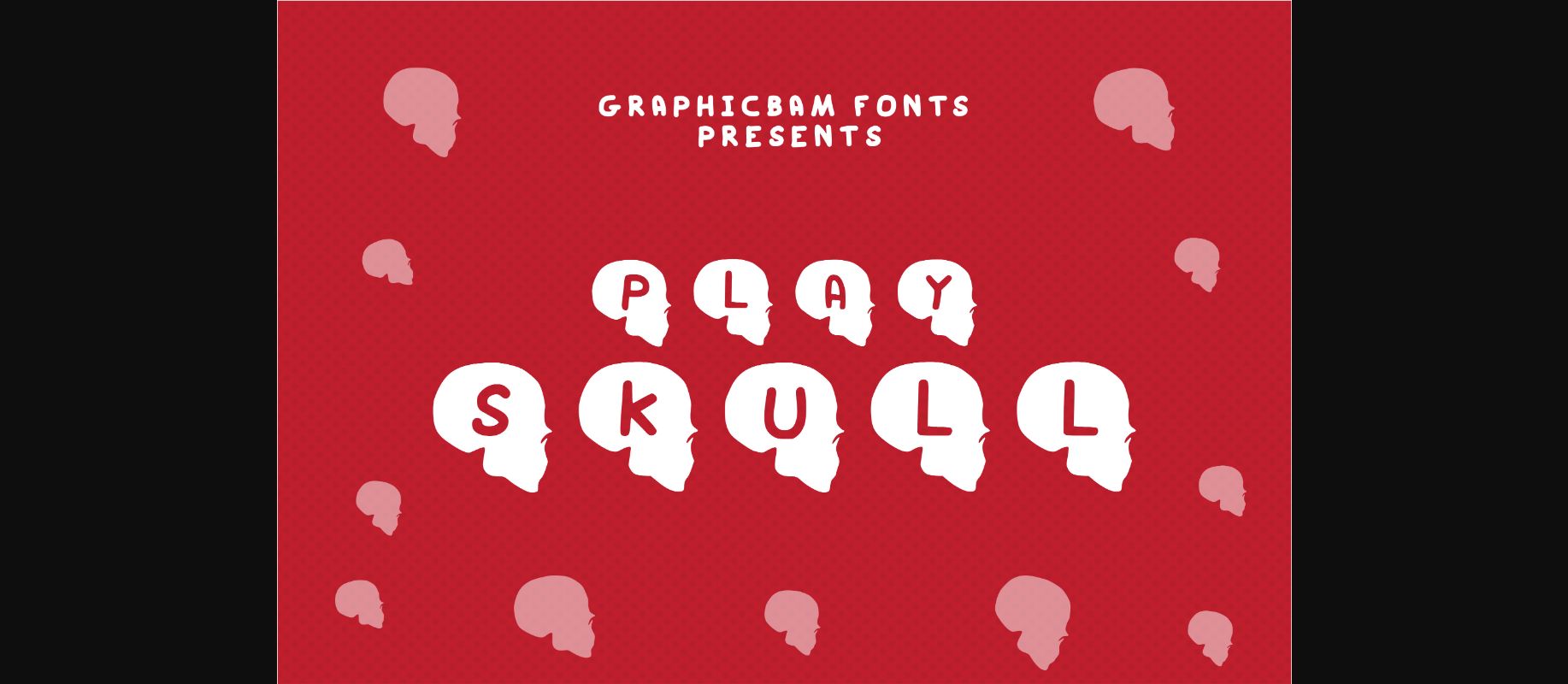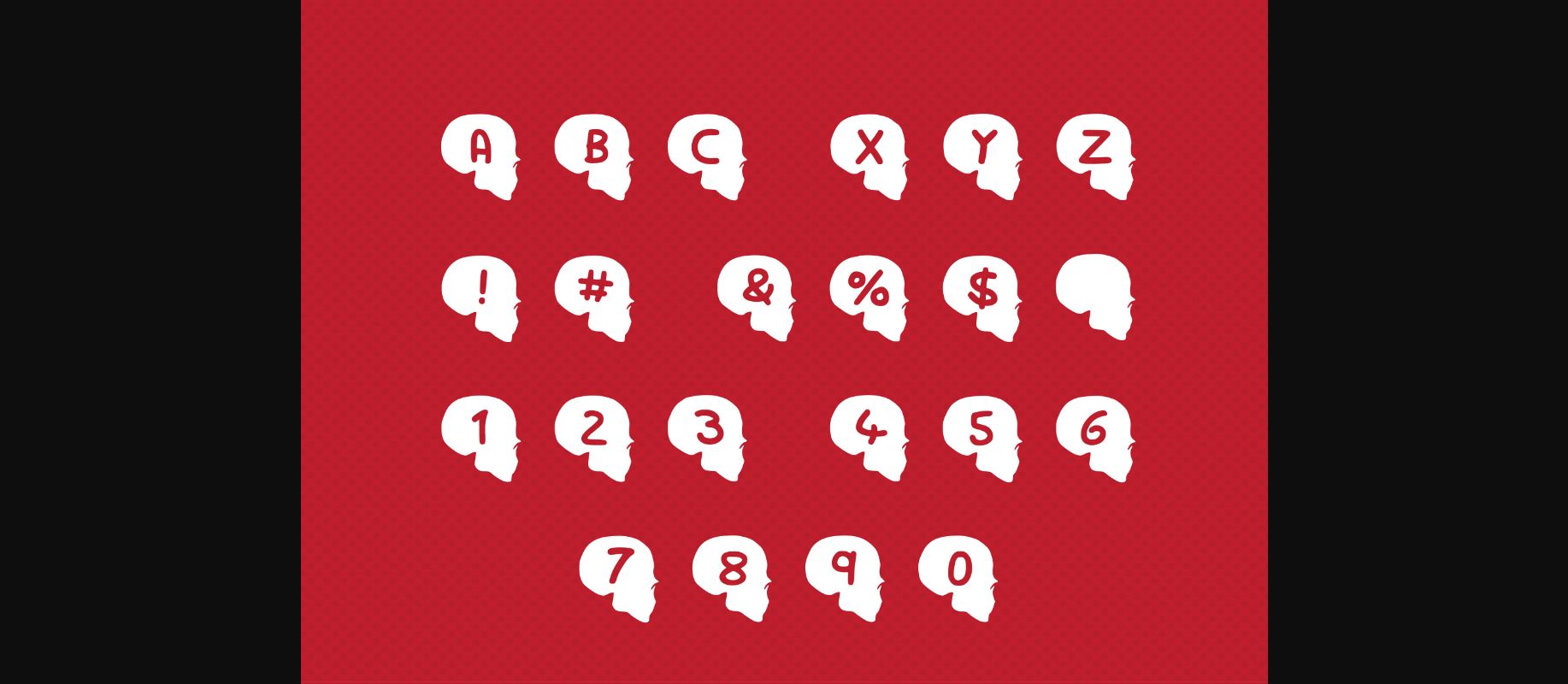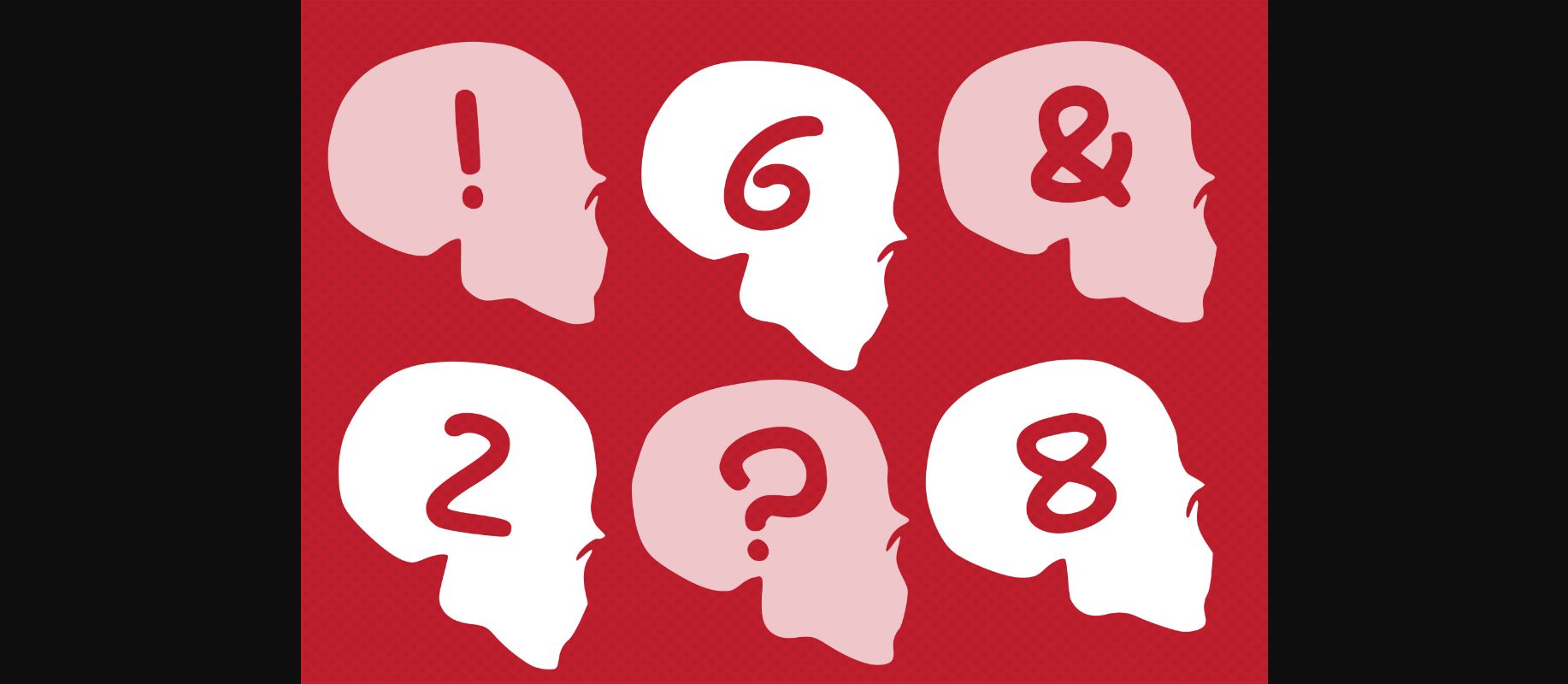
About Play Skull Font
Play Skull is a fun decorative font that comes with cute letters inside skull silhouettes. Itβs the perfect typeface for Halloween, storybooks, scary movies, and more.